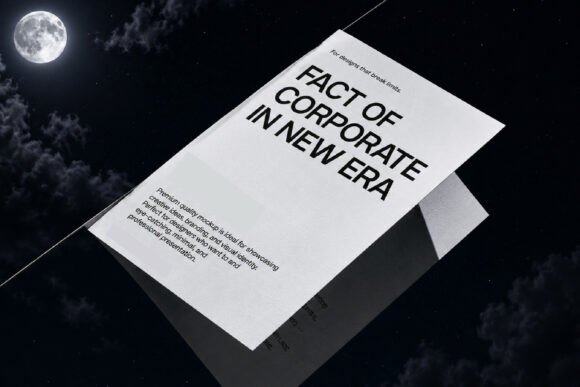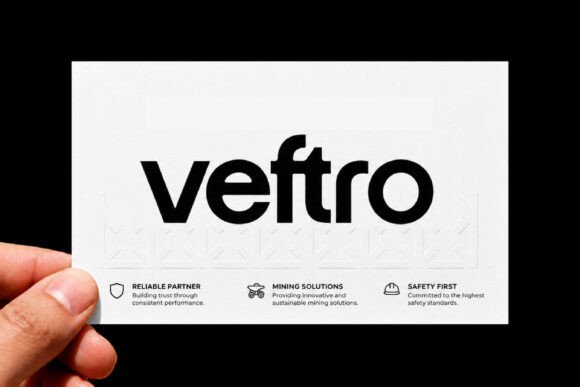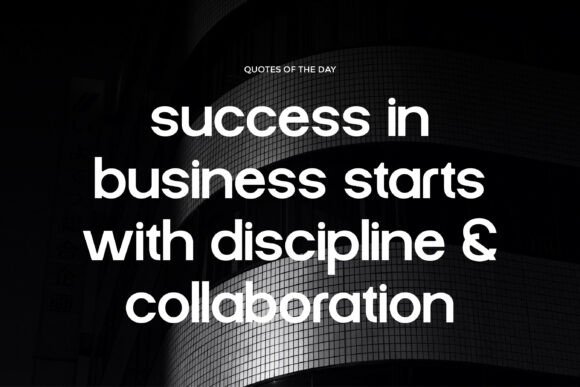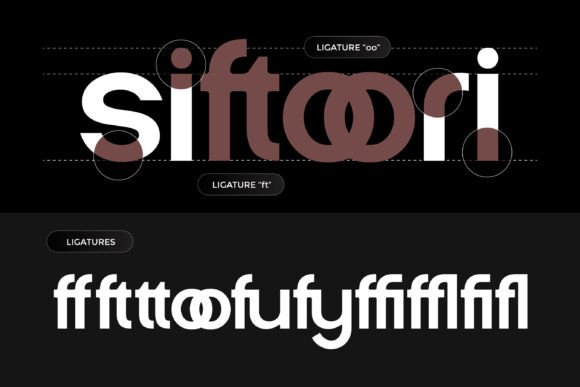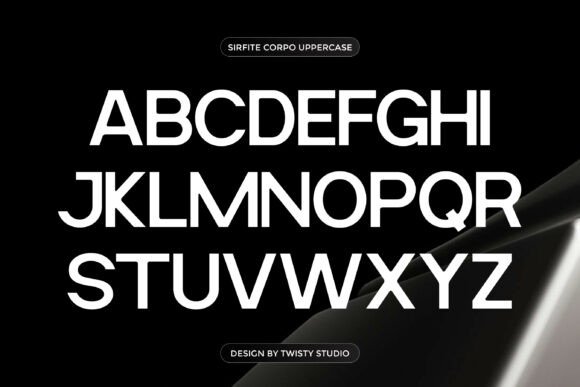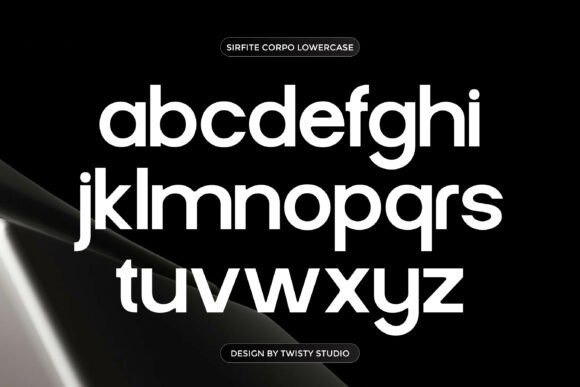
Introduction to Sirfite Font
Sirfite is a modern corporate sans serif typeface designed to deliver professionalism, clarity, and a clean contemporary appearance.
Featuring balanced proportions, smooth letterforms, and a minimalist structure, Sirfite creates a sleek and trustworthy visual identity suitable for modern business communication Its versatile and highly readable design makes it perfect for corporate branding, presentations, digital interfaces, and professional layouts.
Key Features of Sirfite Font
Why Choose Sirfite Font?